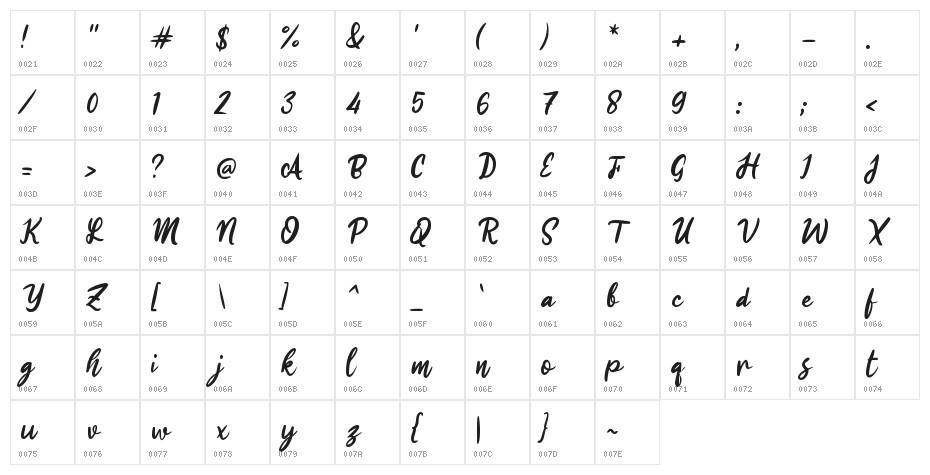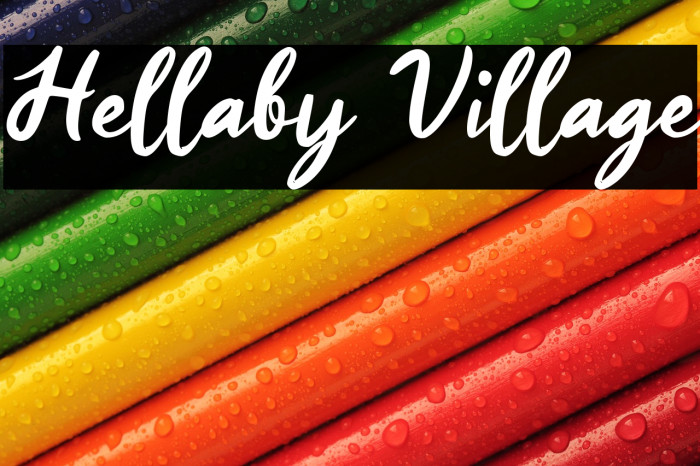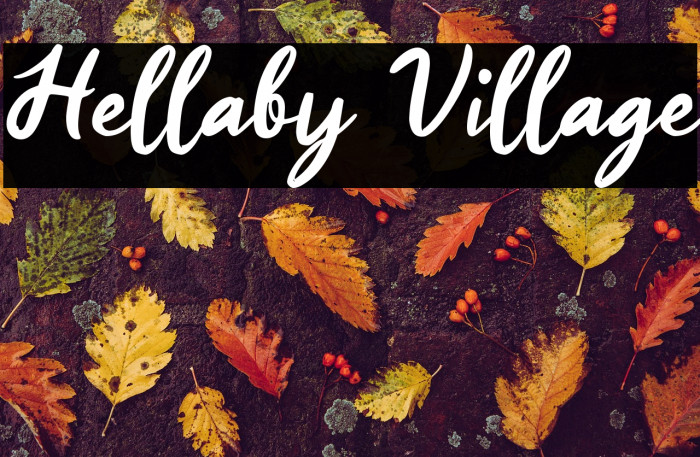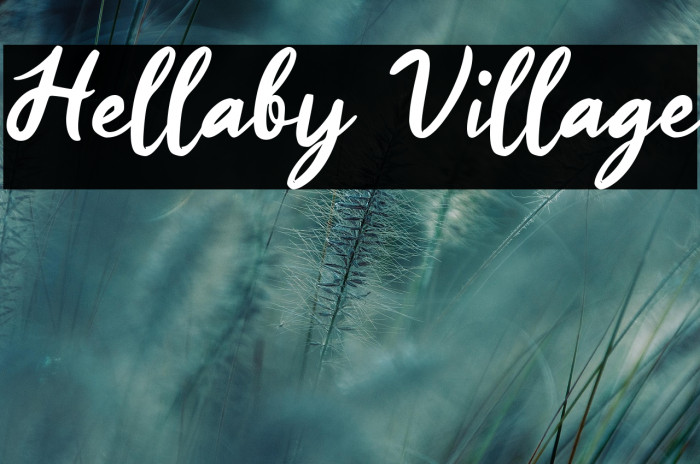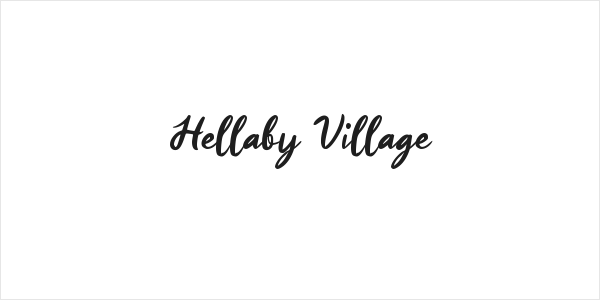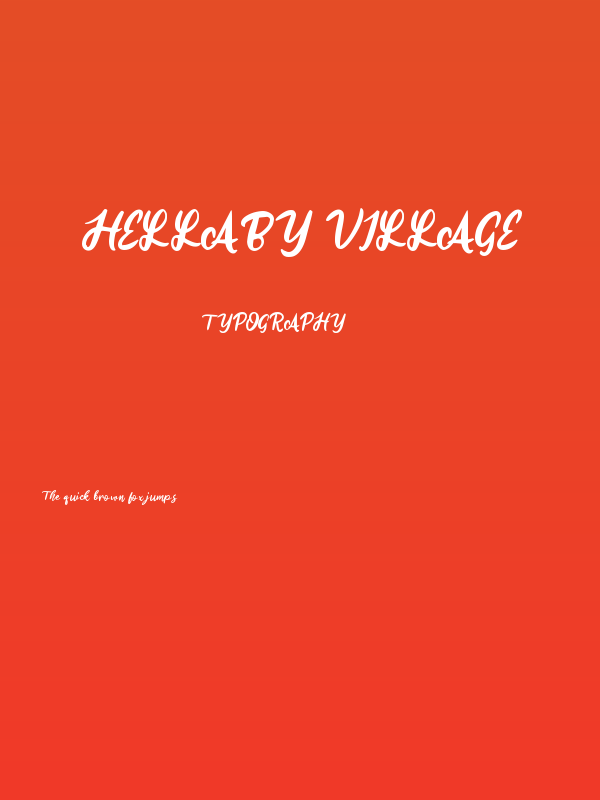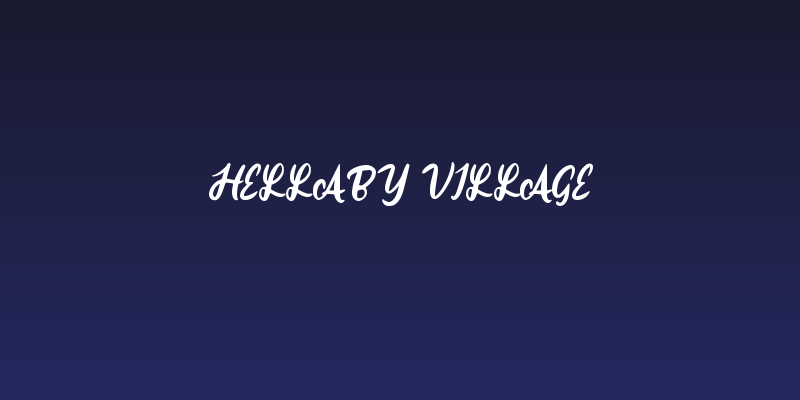
Hellaby Village Font
Hellaby Village Description
A bold, flowing script font with a handwritten appearance, featuring connected letterforms and dynamic strokes. The characters have a casual yet elegant style, with moderate slant and rounded terminals. The numerals and punctuation maintain the same expressive, cursive quality.
| Overall Style | Decorative, Handwritten, Modern |
| Use Case | Logos, Headlines, Invitations, Posters |
| Proposed Projects | Greeting cards, invitations, branding, social media graphics, posters. |